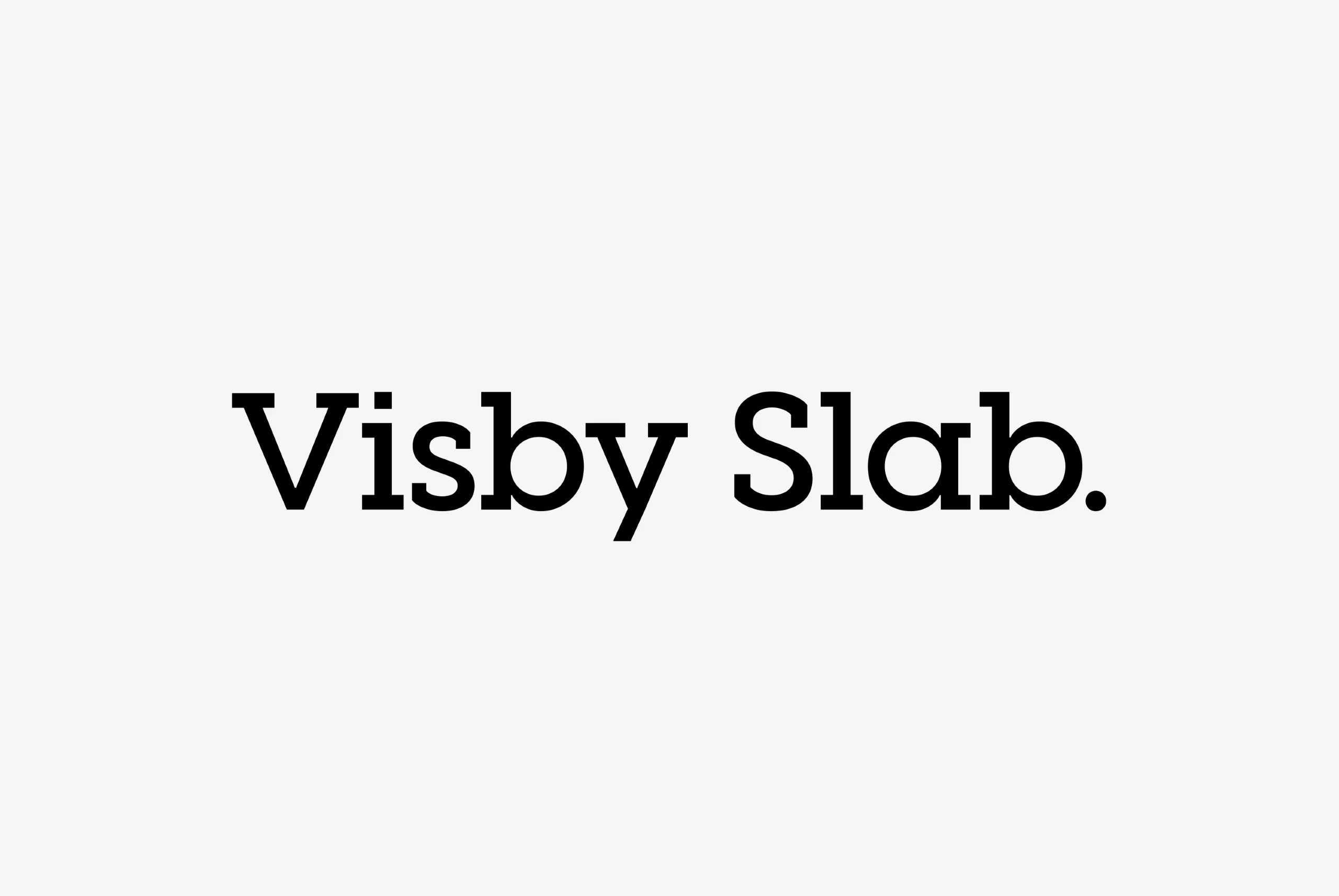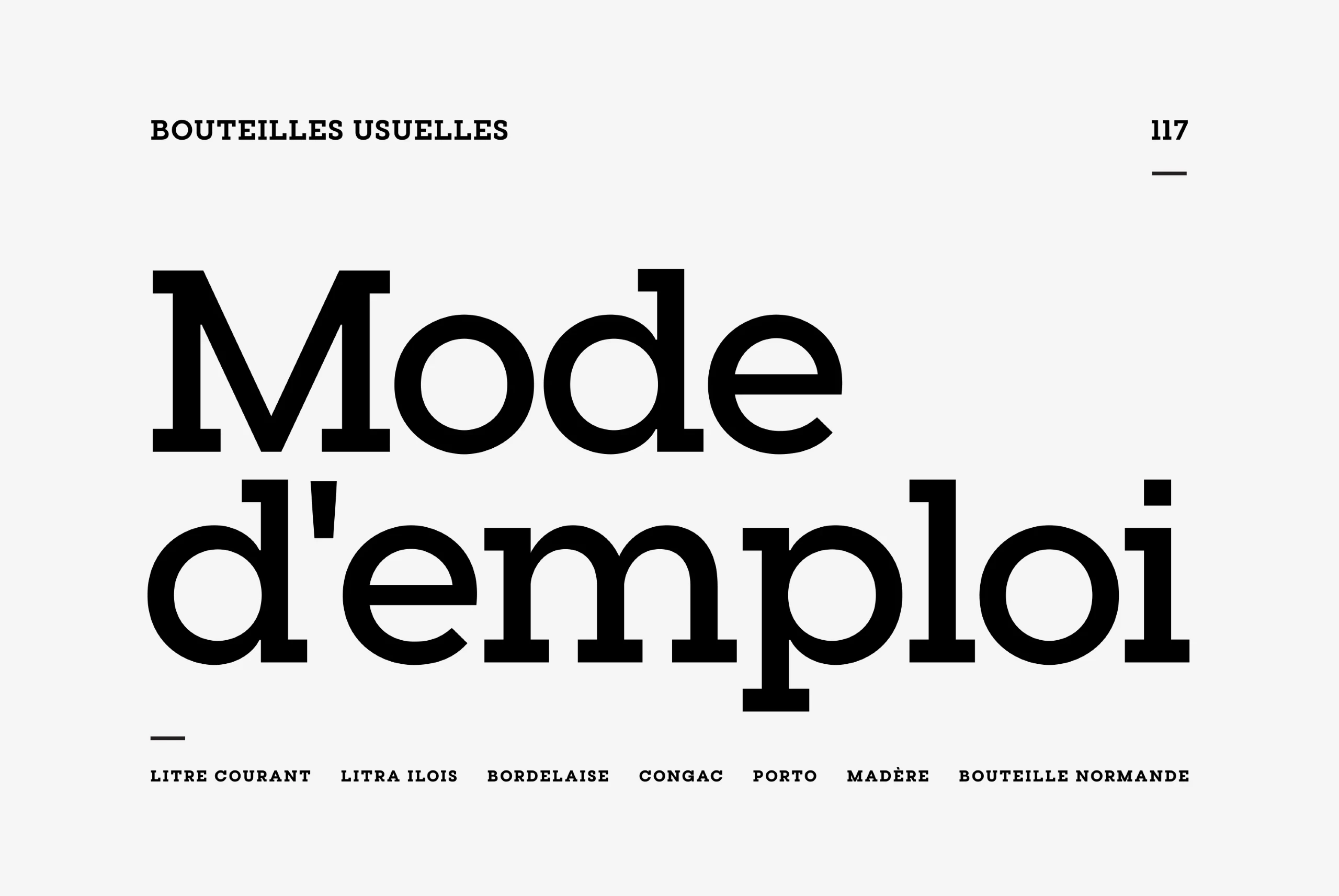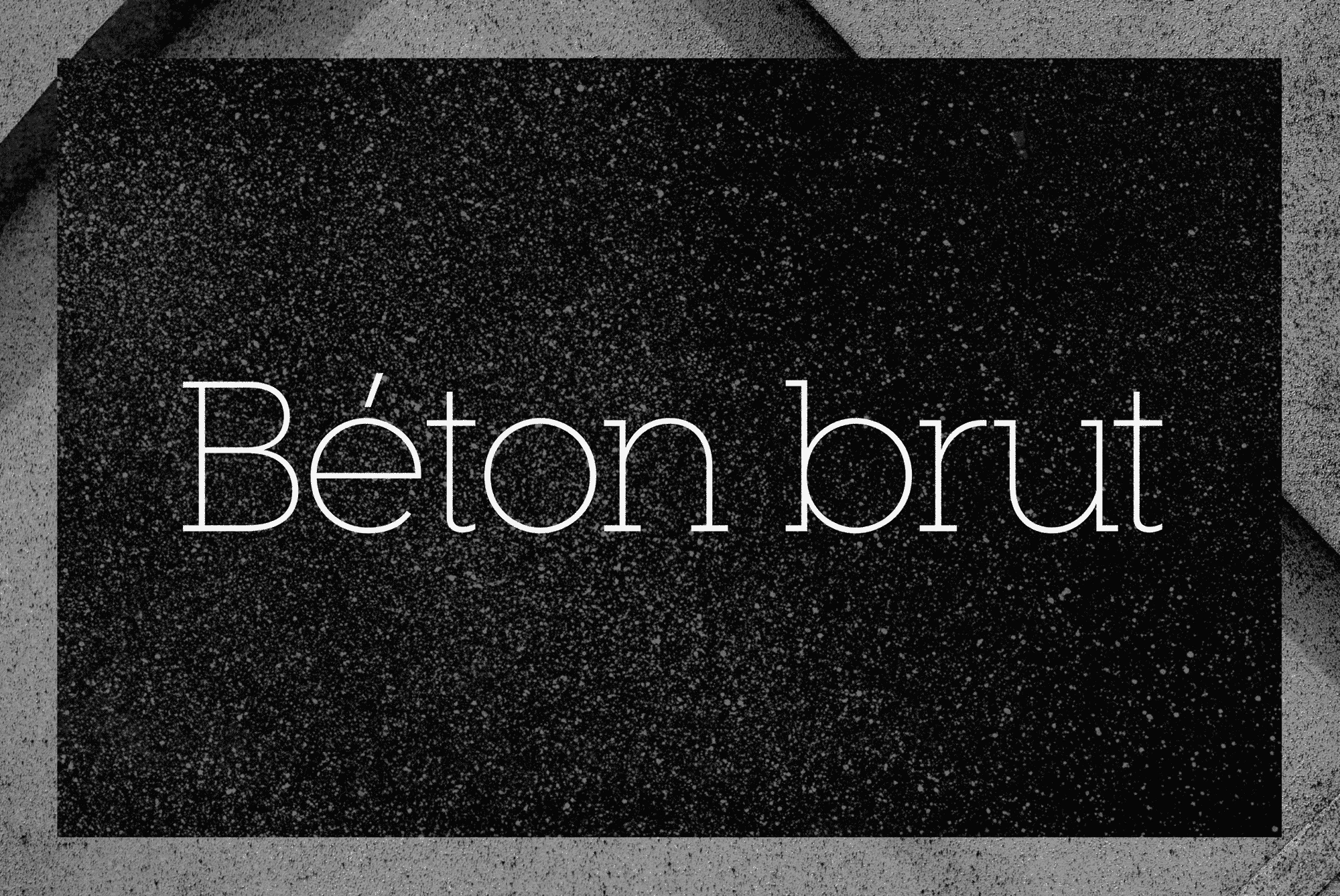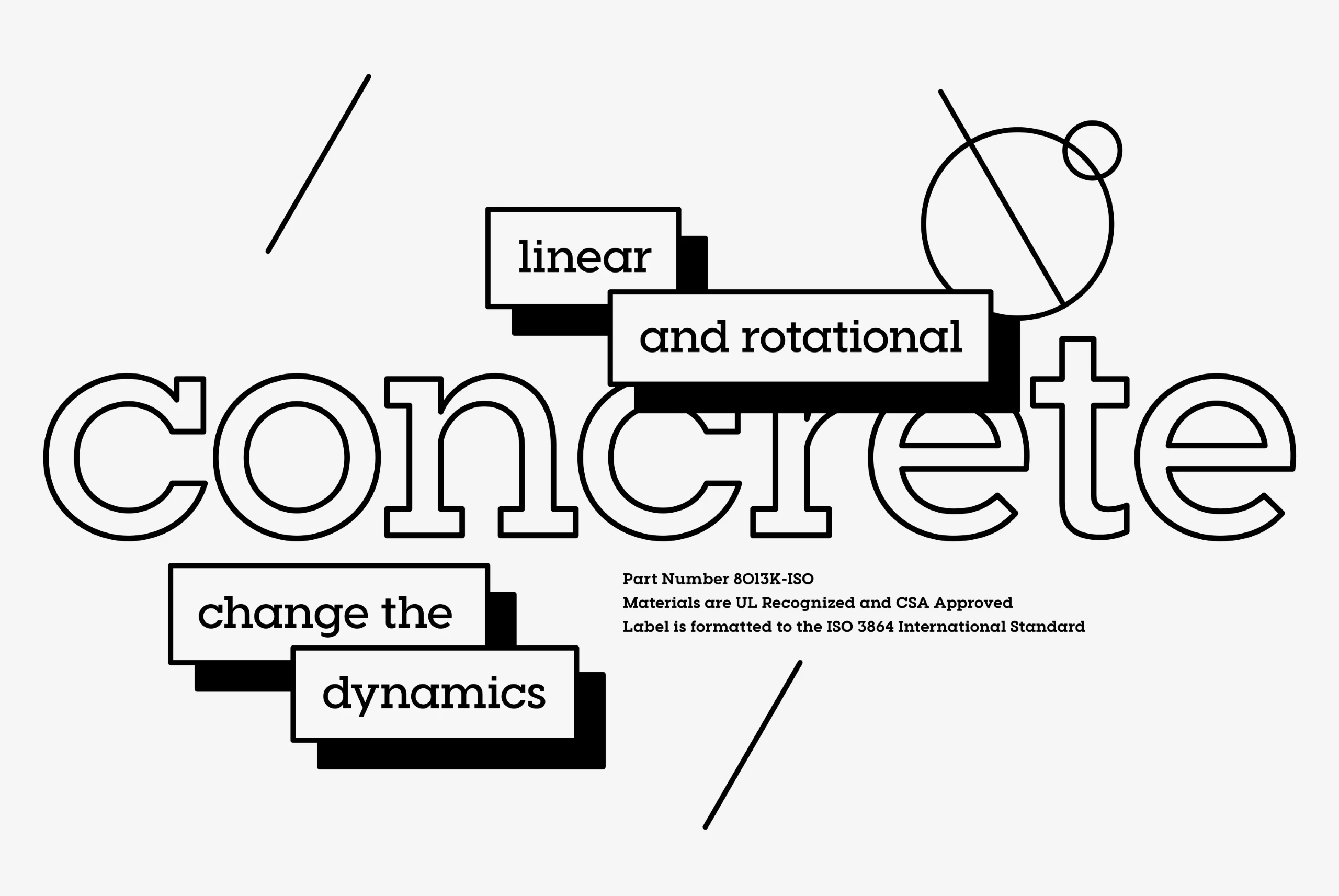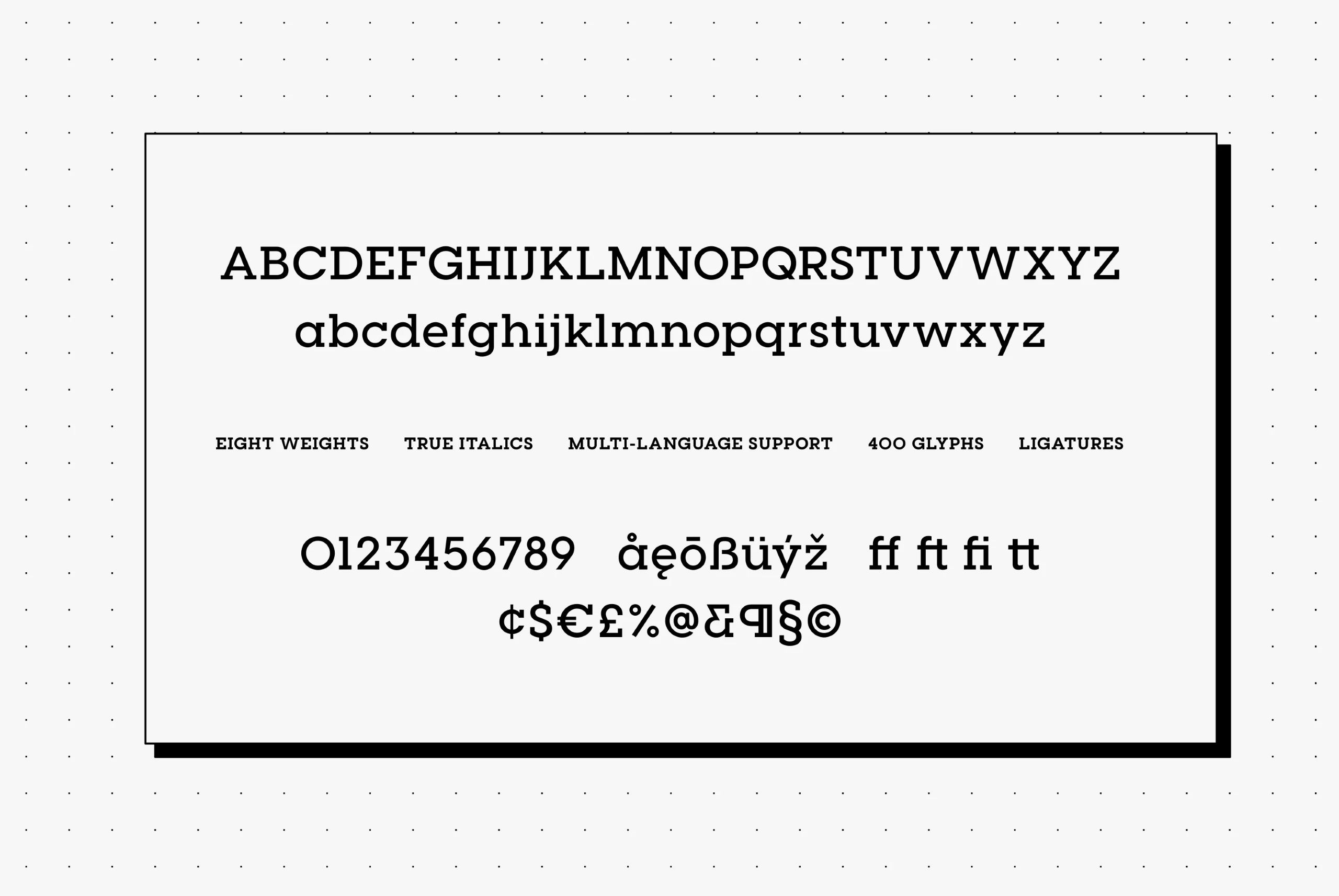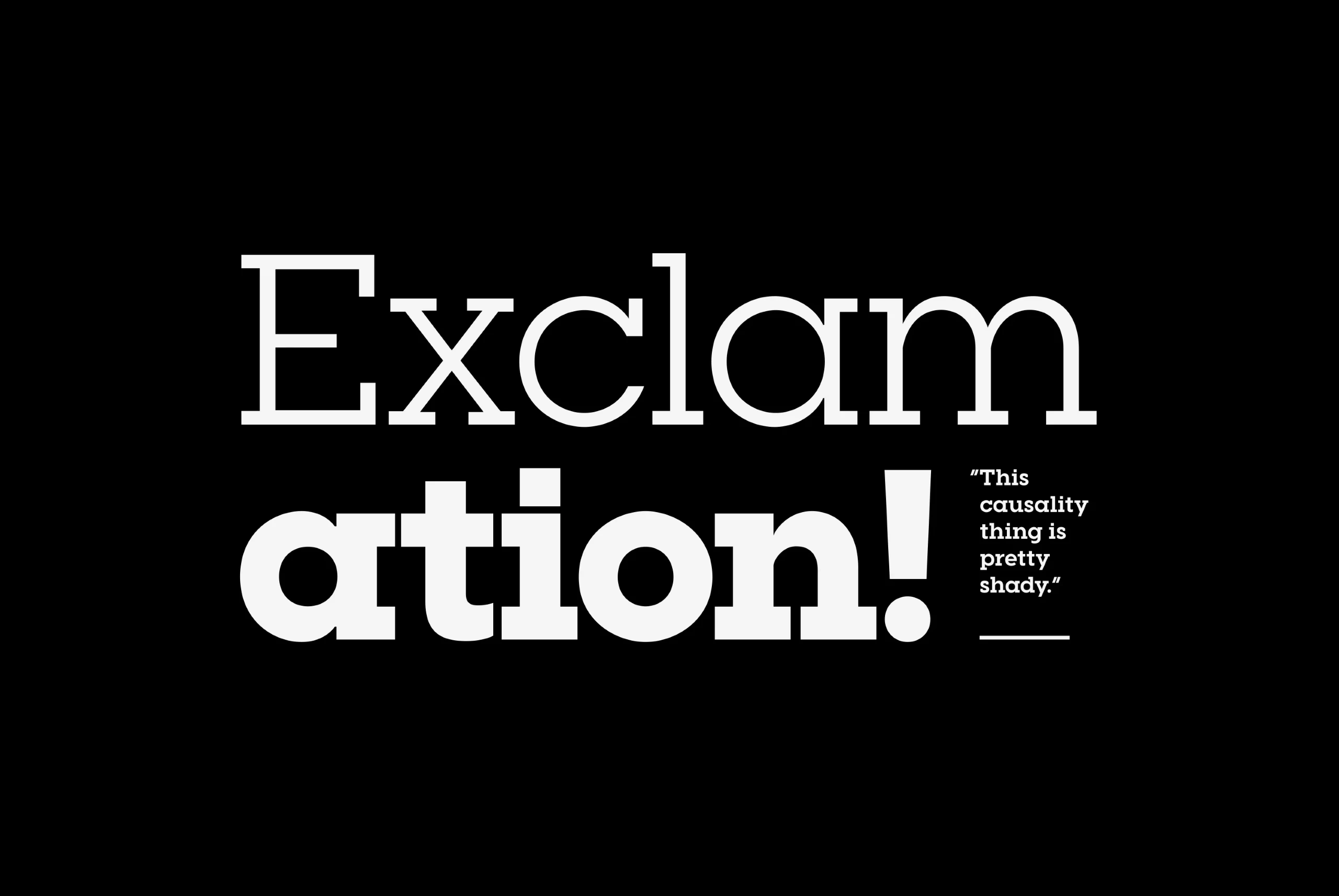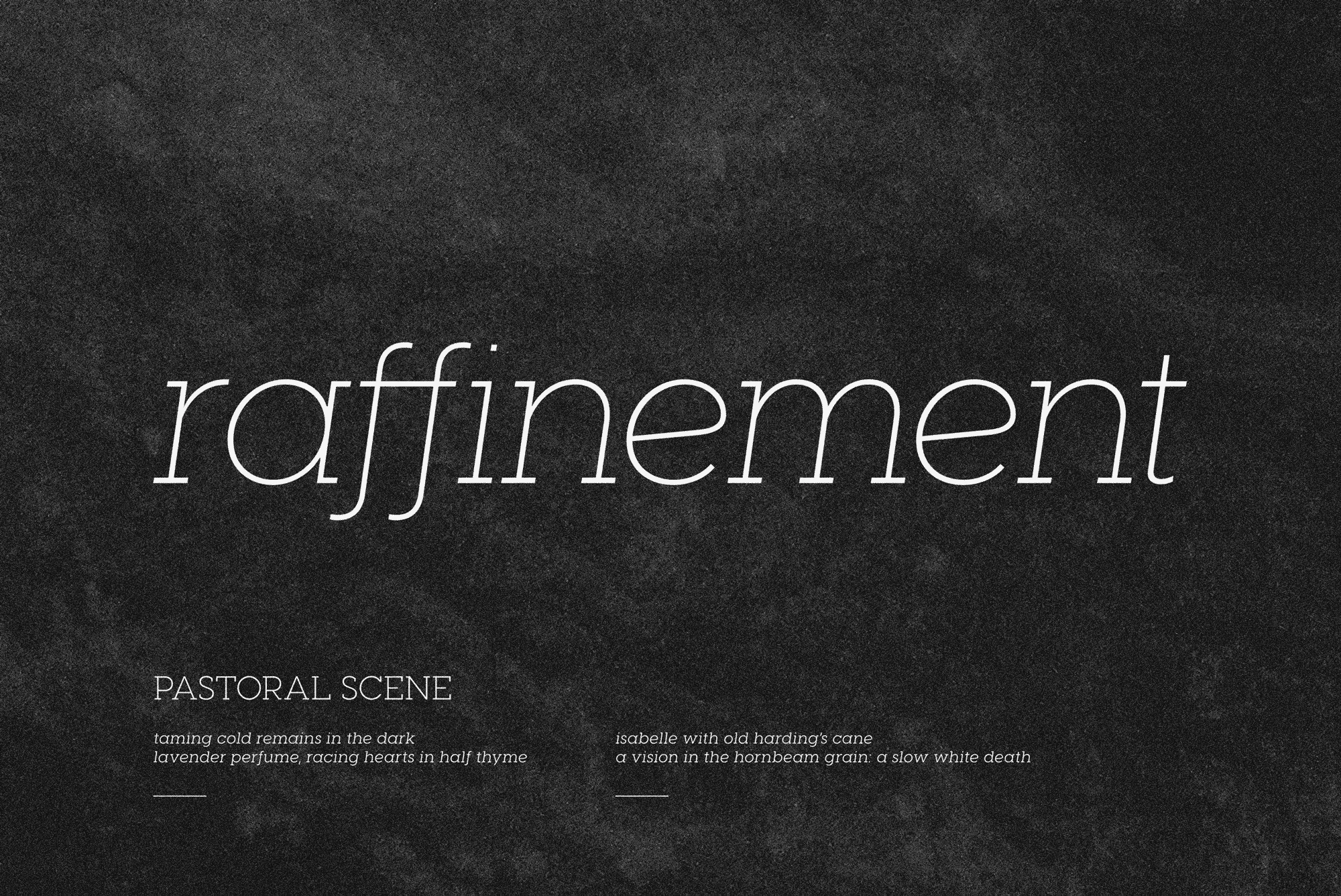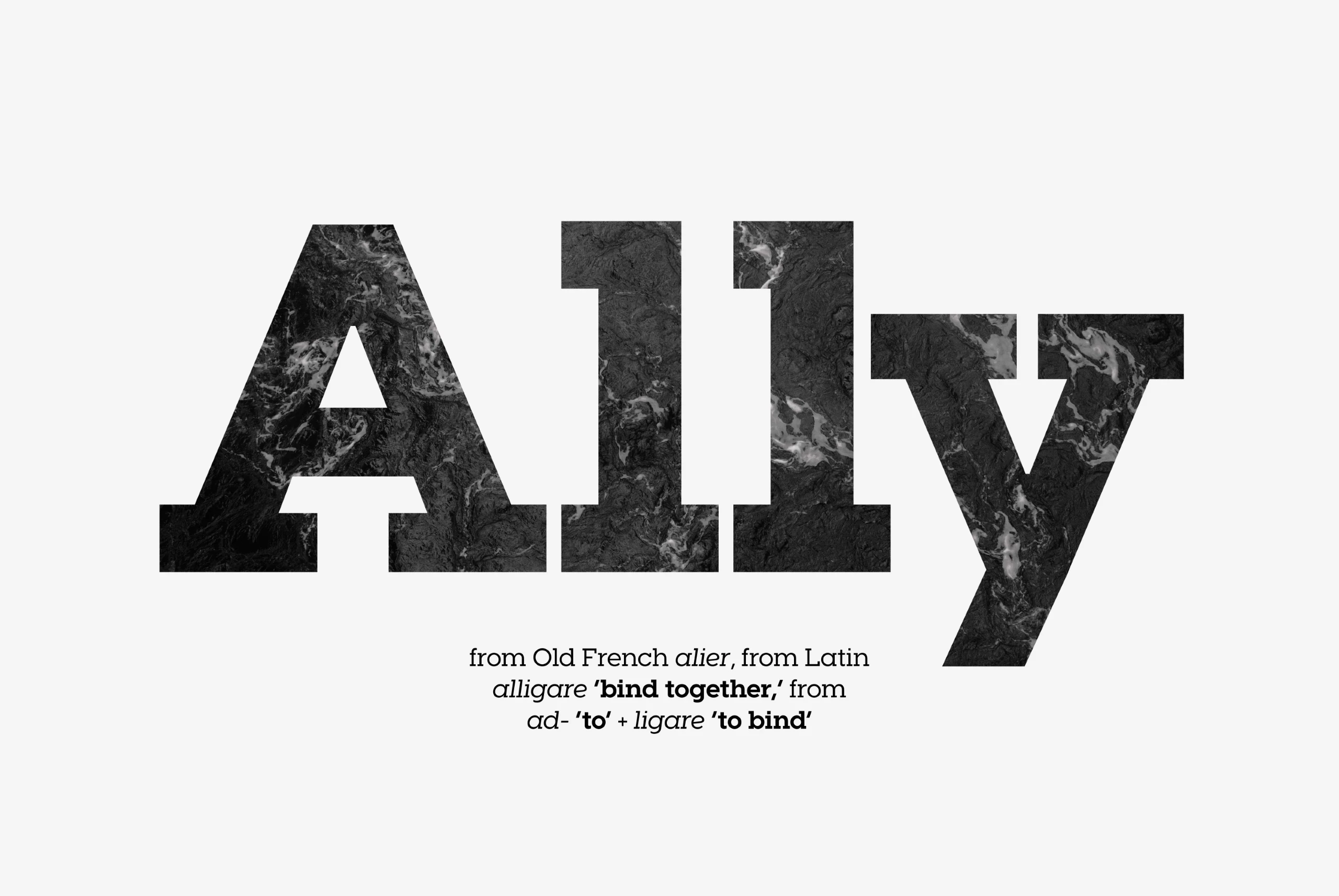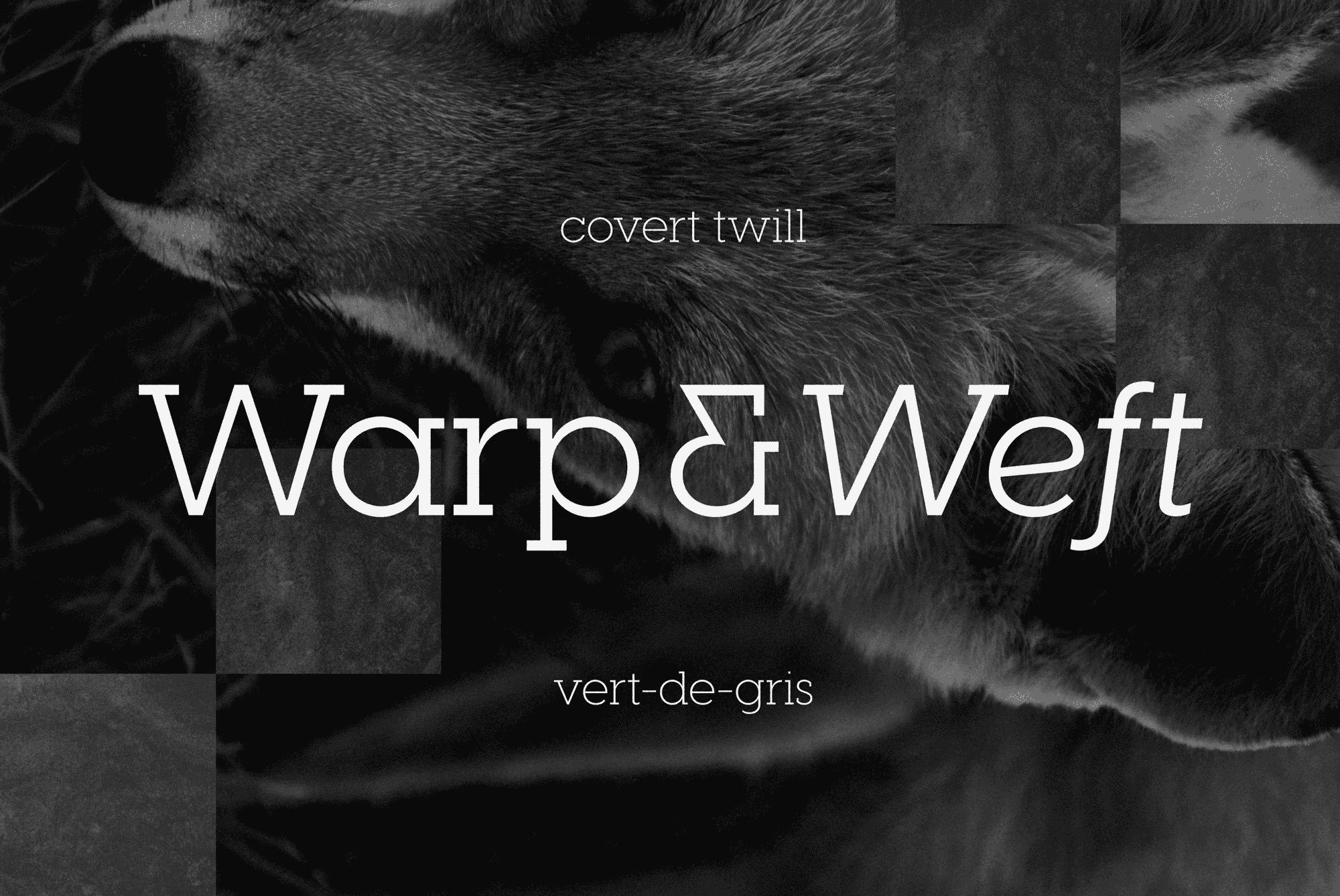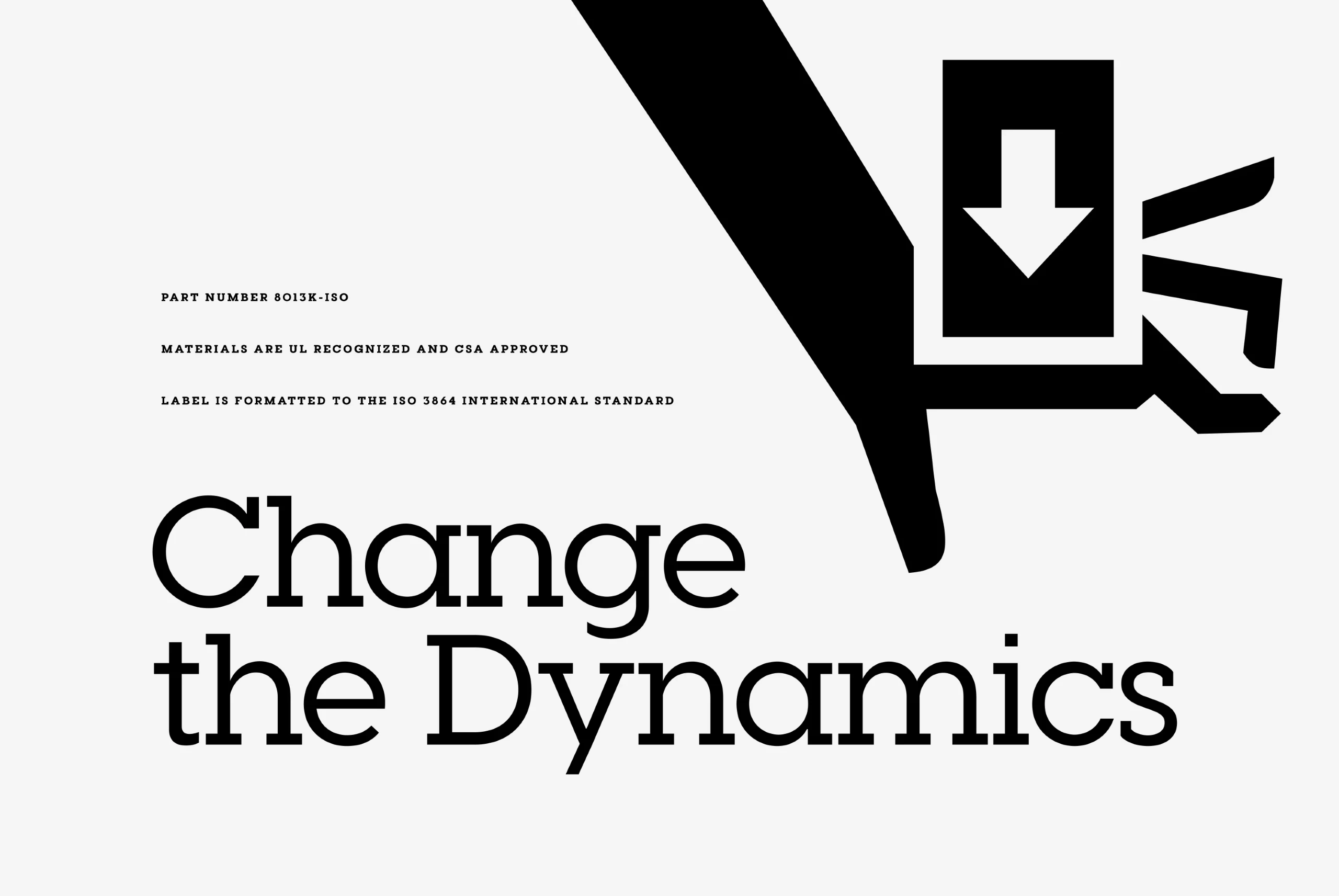
Visby Slab
Visby Slab Font Family
Visby Slab is a geometric slab serif built on the popular Visby font family. Fun to use and expressive, Visby Slab is vibrant and strong in all of its eight weights, and features true italics and generous language support. Excellent for headlines, captions, and just about everything in between.
eight Weights in Latin Script
Language support includes Catalan, Chinese Pinyin, Croatian, Czech, Danish, Dutch, English, Filipino, Finnish, French, Fula, German, Hungarian, Indonesian, Italian, Latvian, Malay, Maltese, Norwegian, Polish, Portuguese, Romanian, Slovak, Slovenian, Spanish, Swedish, Turkish
Visby Slab font by Connary Fagen Fonts — the words “Visby Slab.” in a heavy slab serif.Visby Slab font by Connary Fagen Fonts — the words “Mode d’emploi” in large slab serif letters, with smaller sans-serif text “BOUTEILLES USUELLES” and “117” above, and a list of words below including “LITRE COURANT” and “BORDELAISE”Visby Slab font by Connary Fagen Fonts — the words “Béton brut” in thin, upright, sans-serif letters on a speckled dark gray background.Visby Slab font by Connary Fagen Fonts — the word “concrete” in outline sans-serif letters, with the words “linear and rotational” and “change the dynamics” in solid slab-serif letters in overlapping boxes, and abstract lines and circles.Visby Slab font by Connary Fagen Fonts — uppercase and lowercase Latin alphabet, numbers, and symbols in an upright slab serif, with words “EIGHT WEIGHTS”, “TRUE ITALICS”, “MULTI-LANGUAGE SUPPORT”, “400 GLYPHS”, and “LIGATURES”Visby Slab font by Connary Fagen Fonts — the word “Exclamation!” in a large, upright slab serif, with the quote “This causality thing is pretty shady.” in a smaller, upright sans serif.Visby Slab font by Connary Fagen Fonts — the word “raffinment” in large, light, italic sans-serif letters, with the words “PASTORAL SCENE” and two short poetic phrases below it.Visby Slab font by Connary Fagen Fonts — the letters A, L, L, and Y in a dark, textured slab serif, with a definition of ‘ally’ below in a sans-serif.Visby Slab font by Connary Fagen Fonts — the words “Warp & Weft” in large upright slab serif letters, with “covert twill” and “vert-de-gris” in smaller upright sans serif letters above and belowVisby Slab font by Connary Fagen Fonts — the words “Change the Dynamics” in a large slab serif, with smaller lines of sans-serif text above, and a large black graphic of a hand pushing a box with a downward arrow.
Ligatures
Discretionary Ligatures
Stylistic Alternates
Stylistic Set 1
Fractions
Tabular Figures
Ordinals
Superscript
Numerators
Denominators